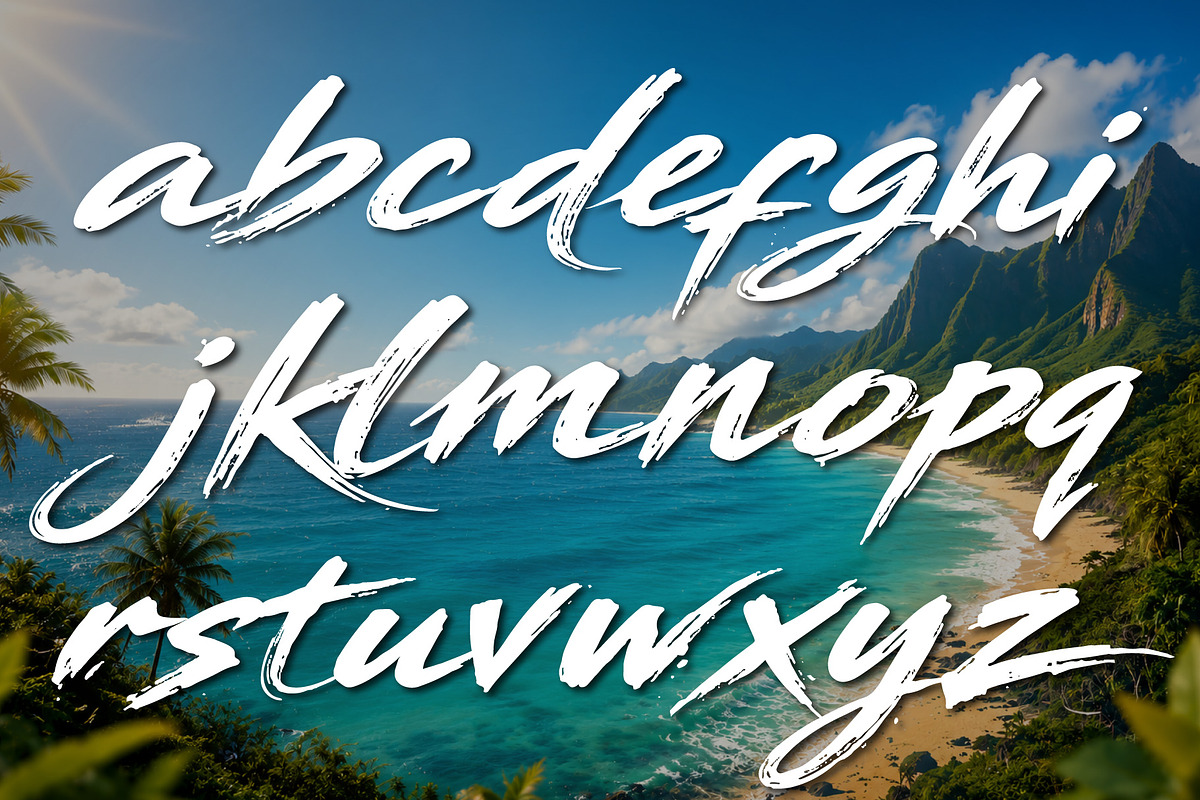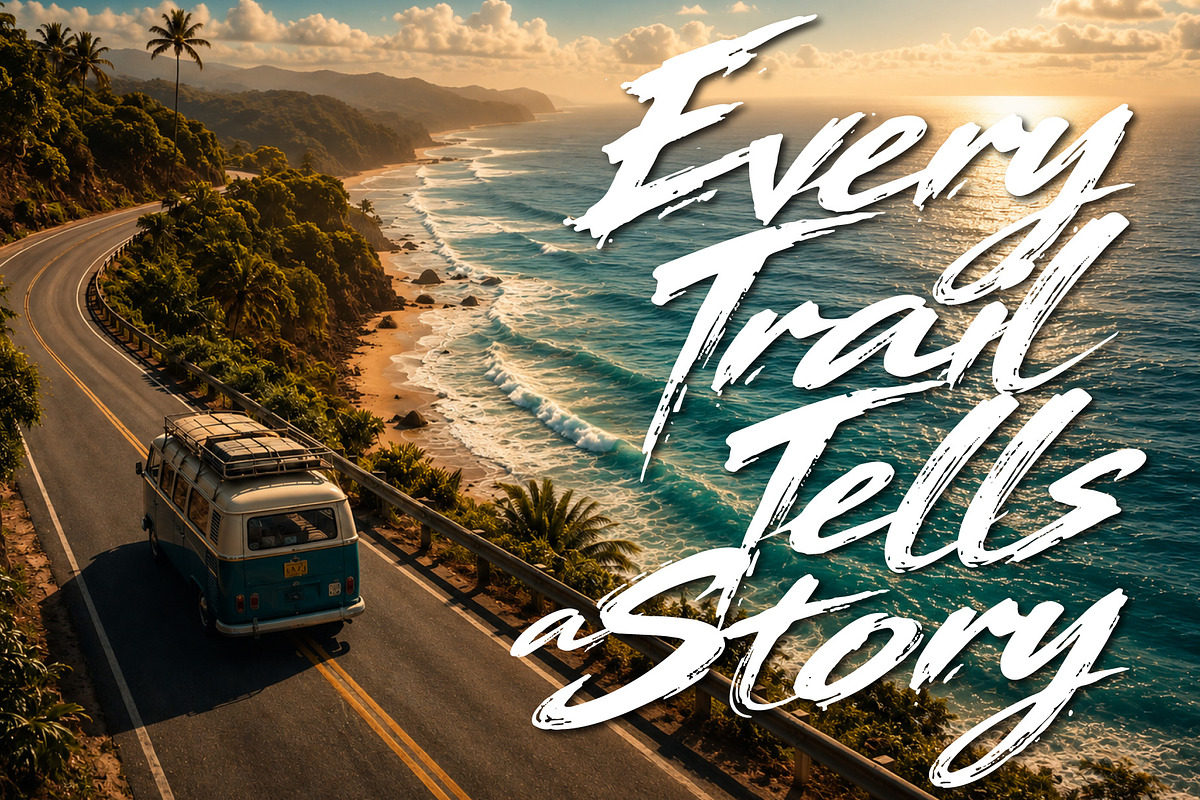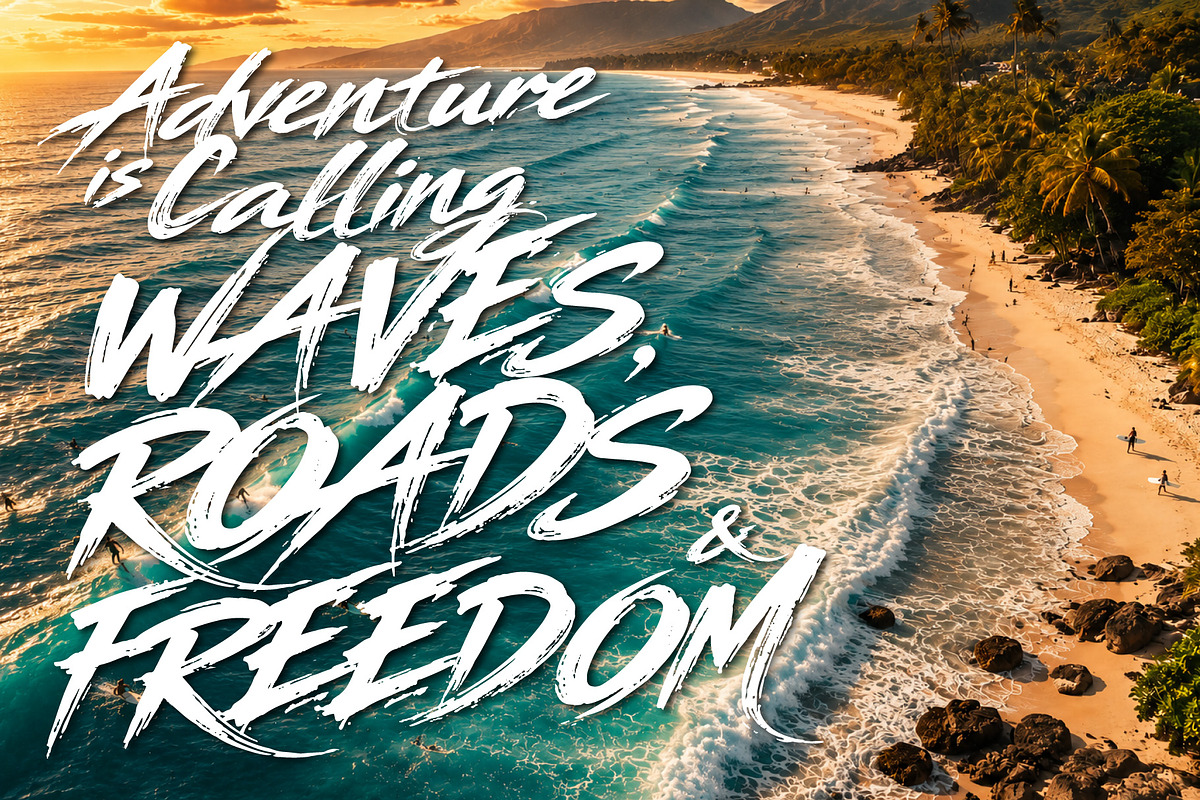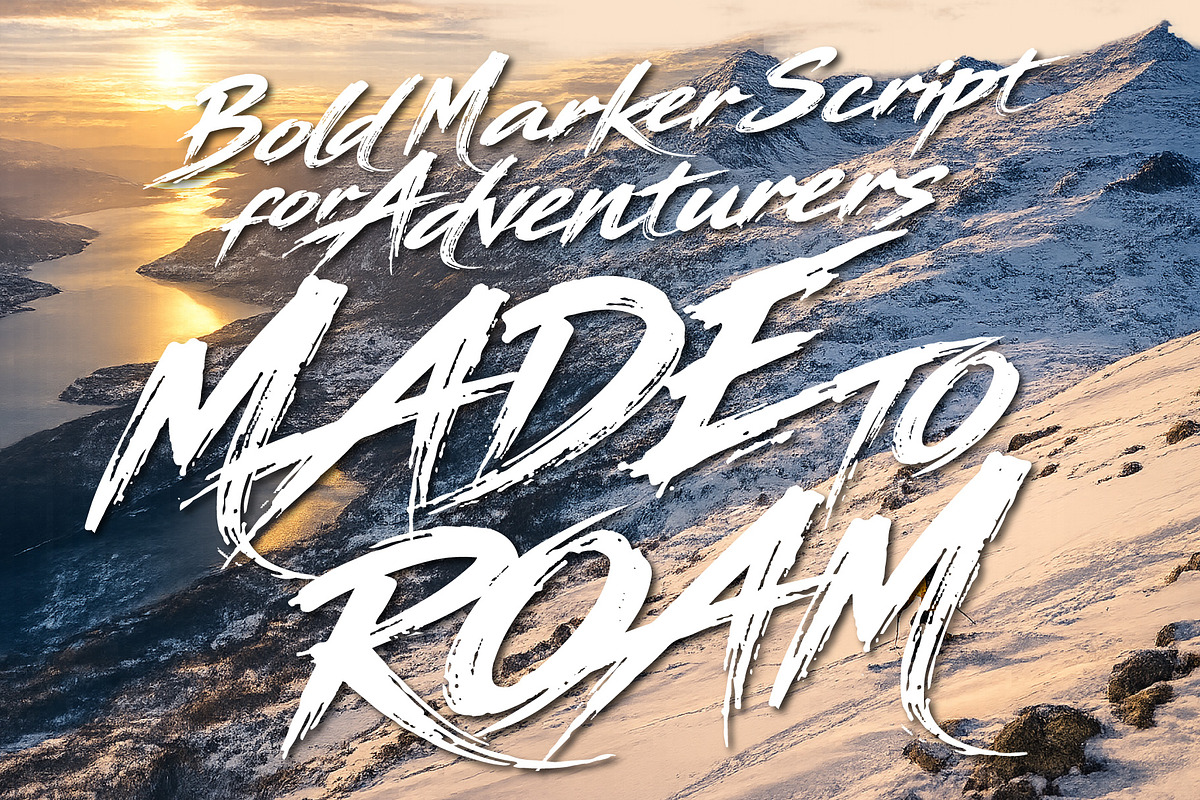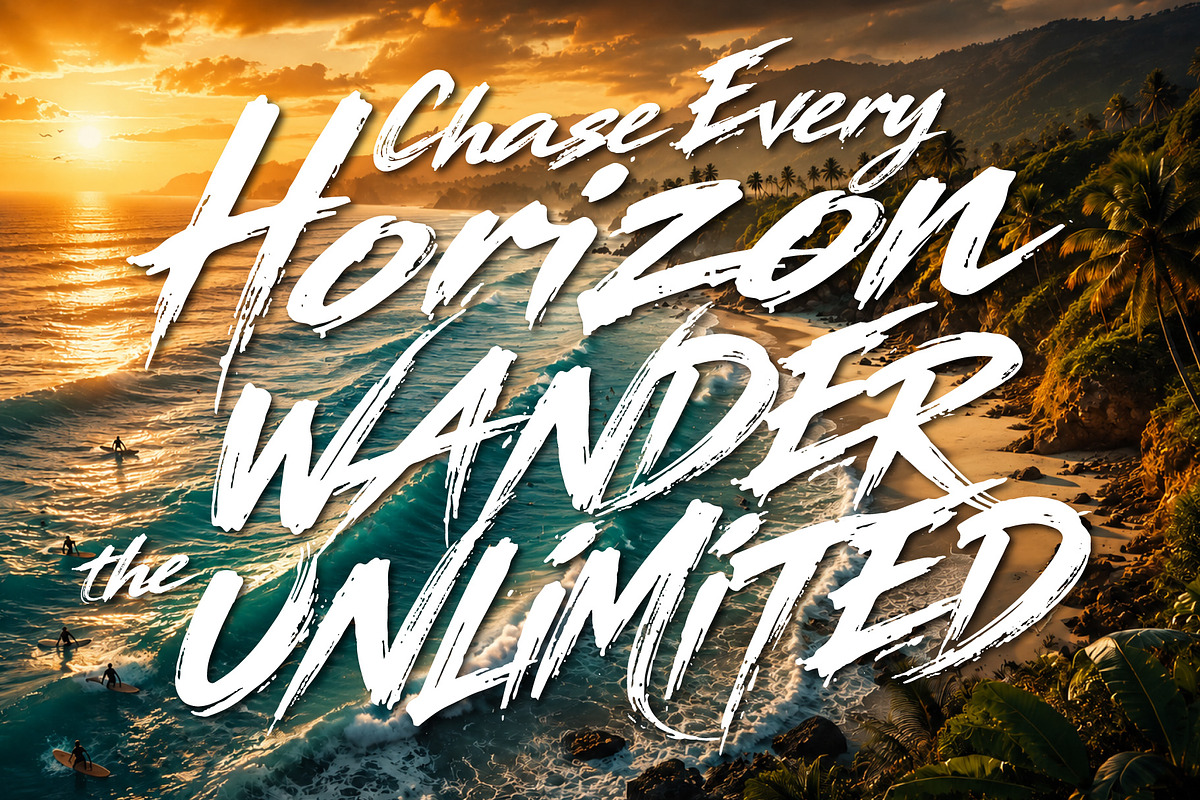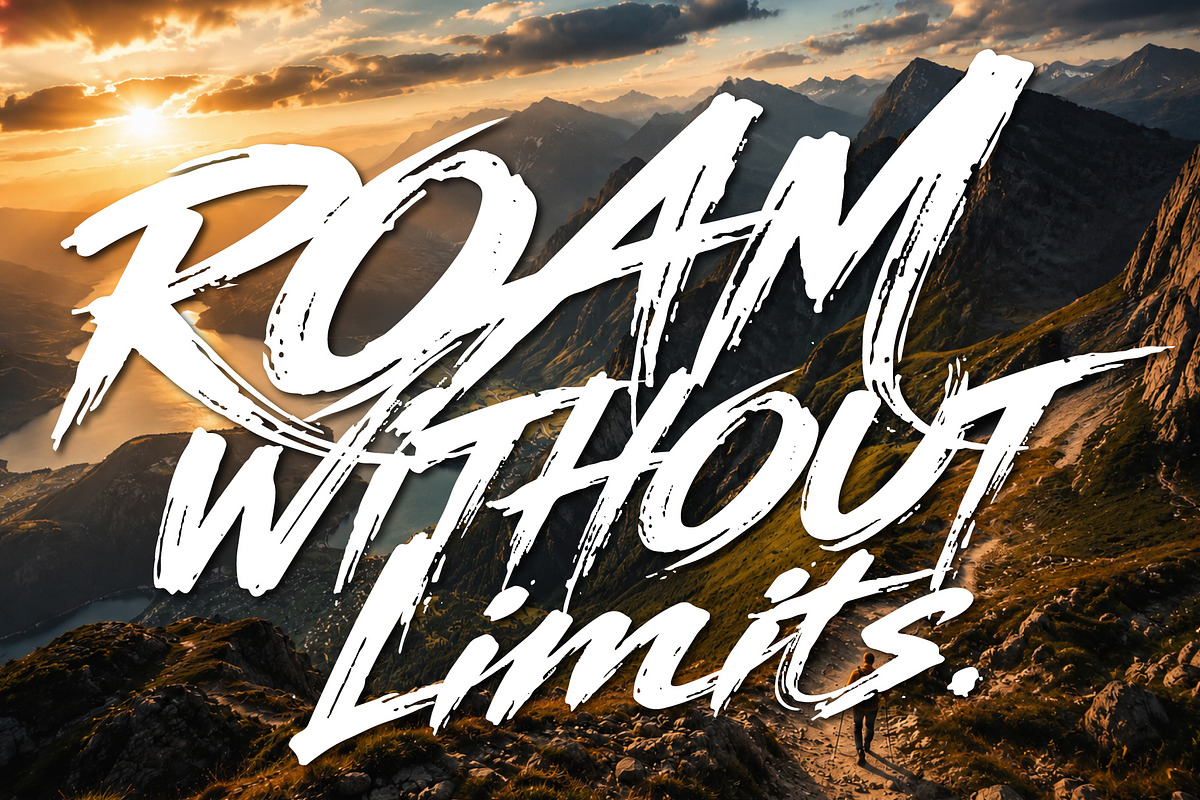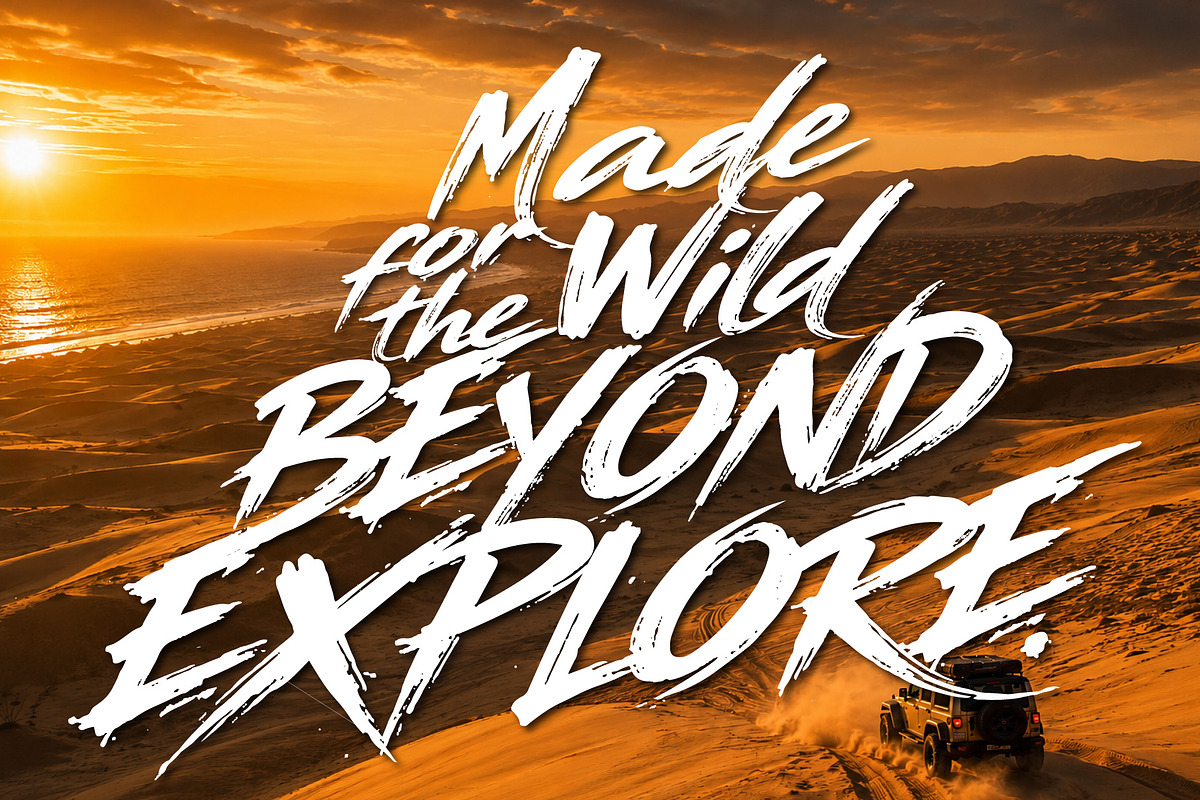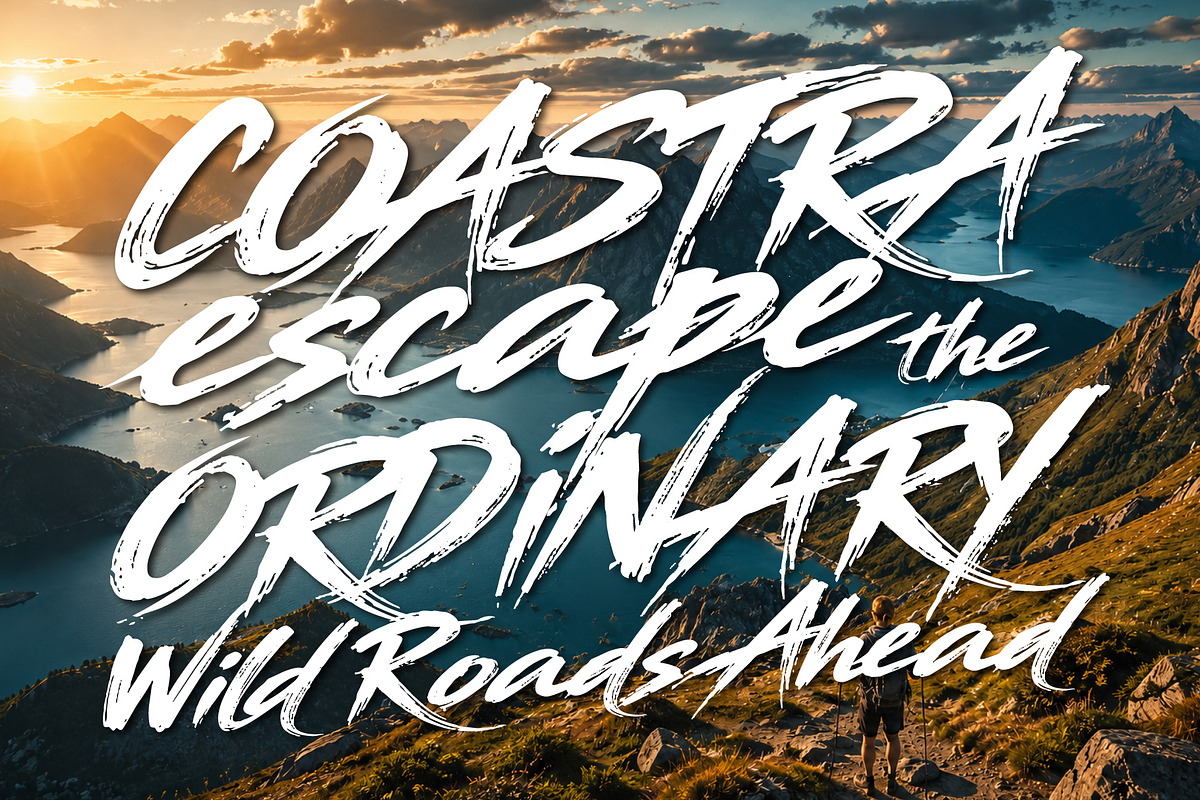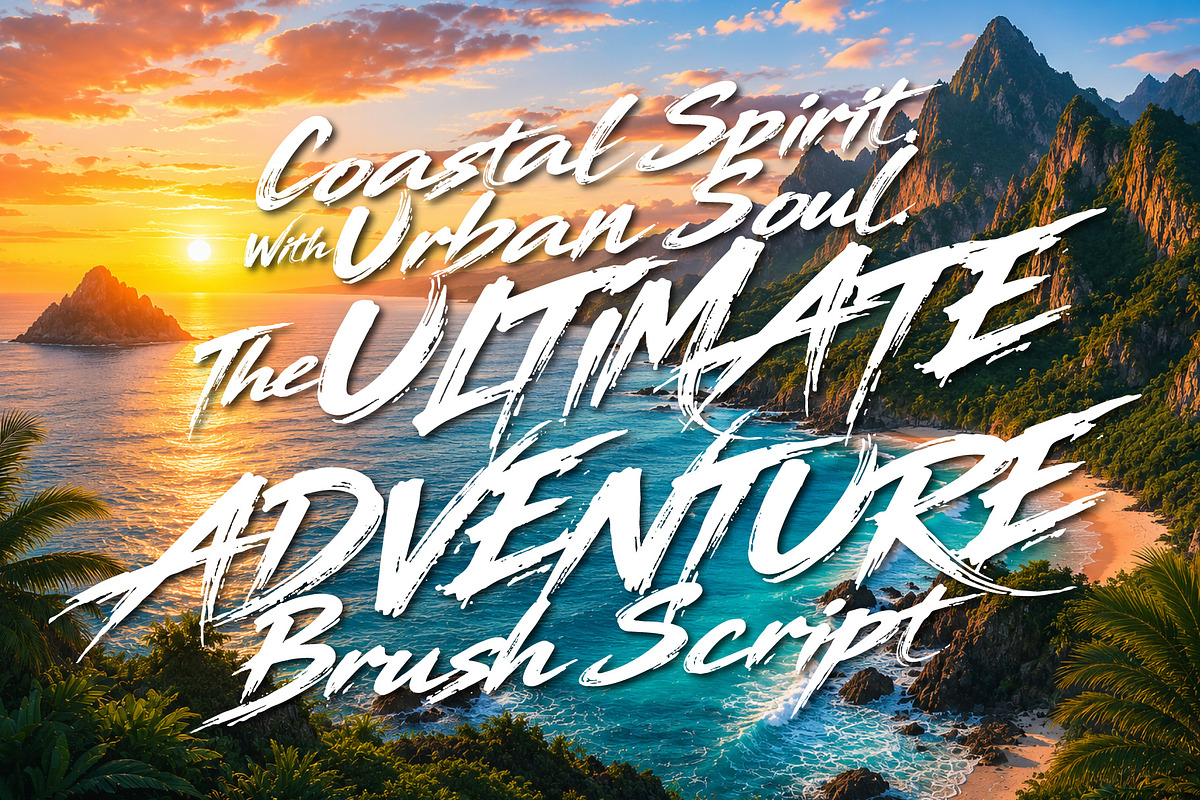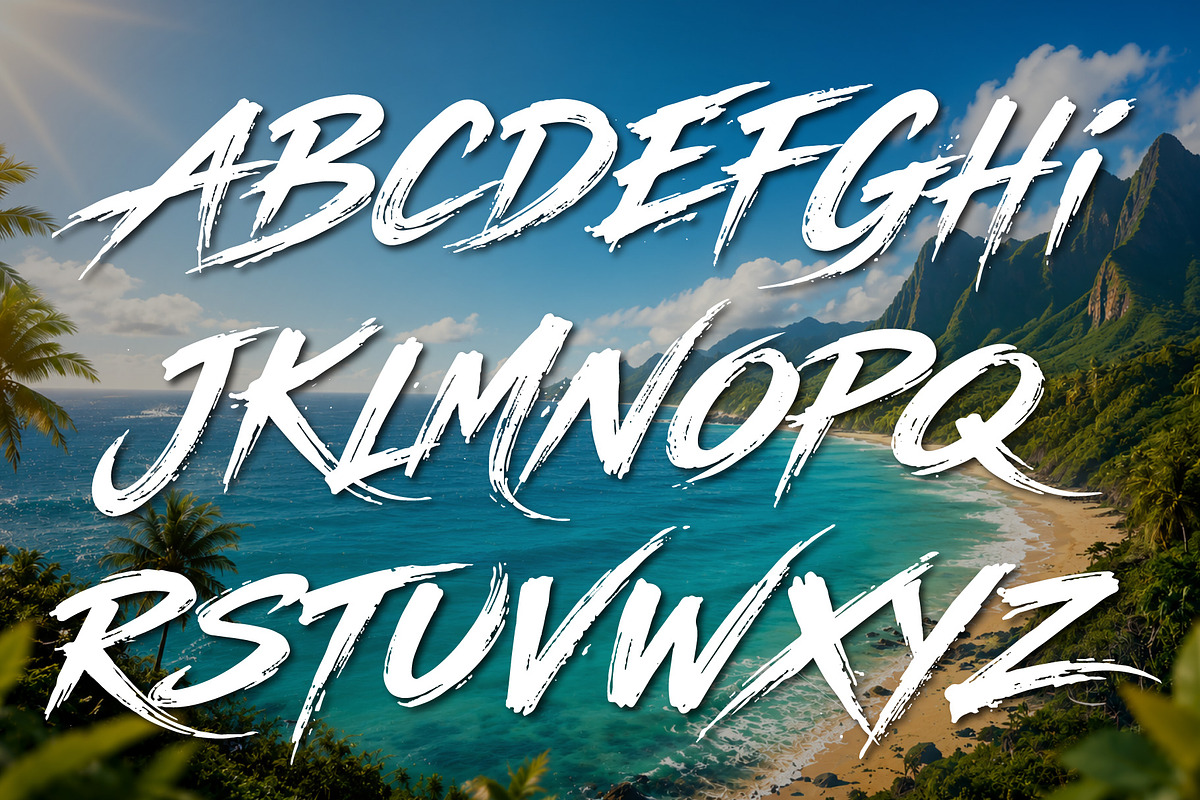
Coastra - Freedom to Roam
Coastra is a bold adventure brush script inspired by the freedom of the coast, endless road trips, surf culture, skate parks, and outdoor exploration. Crafted with energetic marker brush strokes and natural calligraphic flow, Coastra delivers an authentic handcrafted look that feels raw, adventurous, and full of movement.
Whether you're designing for a surf brand, travel campaign, outdoor apparel, coffee packaging, skate merchandise, adventure posters, social media, YouTube thumbnails, or lifestyle branding, Coastra brings an energetic personality that instantly grabs attention.
Its expressive strokes combine urban street style with coastal adventure, making it equally at home on beach festivals, hiking gear, camping logos, vintage badges, motorcycle clubs, and action sports graphics.